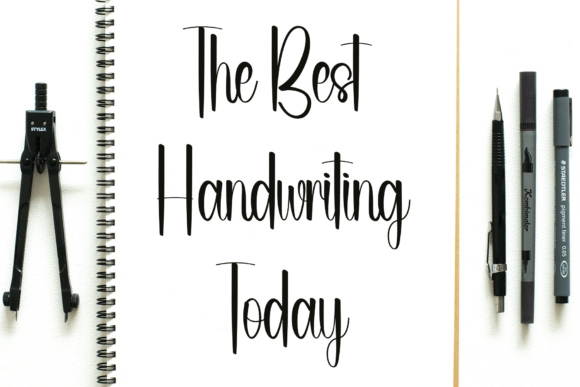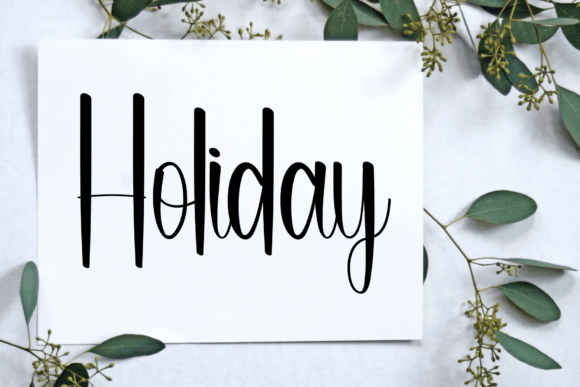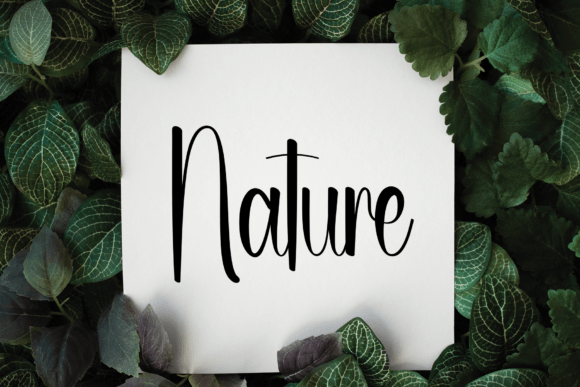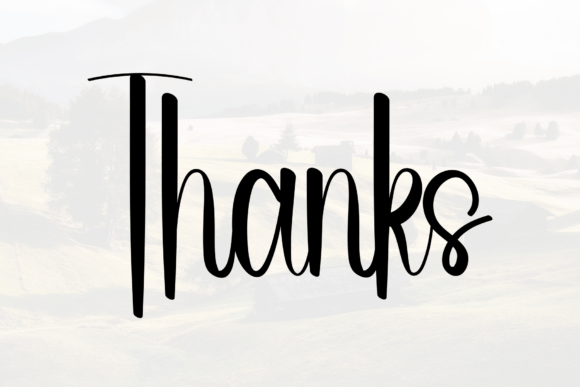
The Perfect Blend of Elegance and Casualness: Introducing Augusta Font
Have you ever found yourself sitting at your desk, marker in hand, sketching out ideas for your next design project? The scratch of the pen, the bleed of the ink, the freedom of not being tied to a computer screen – there’s something special about creating with a physical medium. It’s moments like these that remind us of the beauty of handwritten fonts, and the Augusta Font is no exception.
With its relaxed and sporty feel, the Augusta Font is perfect for designers looking to add a touch of elegance and casualness to their projects. Whether you’re creating branding materials, logos, wedding supplies, or marketing promotions, this font is sure to make your designs stand out. Its luxurious yet laid-back vibe makes it a valuable addition to any designer’s toolkit.
Augusta Font Key Features
- Unique Characteristics: The Augusta Font features elegant, refined lines and subtle curves, making it an ideal choice for formal and high-end designs, such as luxury brands, fine art, and upscale publications.
Augusta Font Review
As a designer, I’ve had the chance to work with Augusta Font, and I must say it’s a unique and interesting choice. ✨ Here are some things that work well for me:
- Its elegant and classic feel makes it perfect for formal documents, like wedding invitations or business reports.
- The font’s high x-height makes it easy to read, even at smaller sizes.
- Augusta Font has a wide range of weights, from light to bold, which gives me a lot of flexibility when designing.
However, like any font, Augusta Font has its limitations ⚠️:
- It’s not the most modern or trendy font, which might make it less appealing to some designers.
- The font’s curves can sometimes be a bit too ornate, which may not work well for simpler designs.
- The italic styles are a bit inconsistent, which can affect the overall flow of the text.
Overall, Augusta Font is a solid choice for designers who need a classic and elegant font. While it may not be the most exciting or modern option, it gets the job done and can add a touch of sophistication to any design. With a bit of practice and patience, I think Augusta Font can be a valuable addition to any designer’s toolkit.
Tips for Getting the Most Out of Augusta Font
Use Augusta Font for formal or elegant designs, such as wedding invitations or business cards. Experiment with different font sizes and styles to create visual interest. Combine Augusta Font with other elegant fonts for a sophisticated look.
Augusta Font is ideal for:
- Formal event invitations
- High-end marketing materials
Alternatives to Augusta Font for Designers
Playfair Display is an elegant and luxurious serif font perfect for creating a sophisticated and high-end look. It is ideal for use in headings, titles, and other display text where a touch of luxury is desired. Compared to Augusta Font, Playfair Display has a more ornate and intricate feel, making it suitable for use in high-end branding, advertising, and editorial design.
Merriweather is a classic and timeless serif font that is perfect for use in body text, headings, and other display text where a traditional look is desired. It is ideal for use in publishing, academic, and corporate design where a sense of professionalism is required. Compared to Augusta Font, Merriweather has a more subdued and conservative feel, making it suitable for use in formal and traditional design contexts.